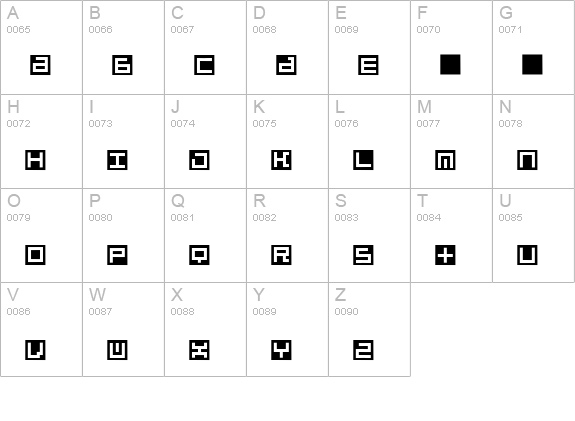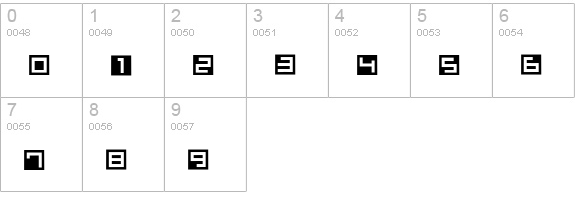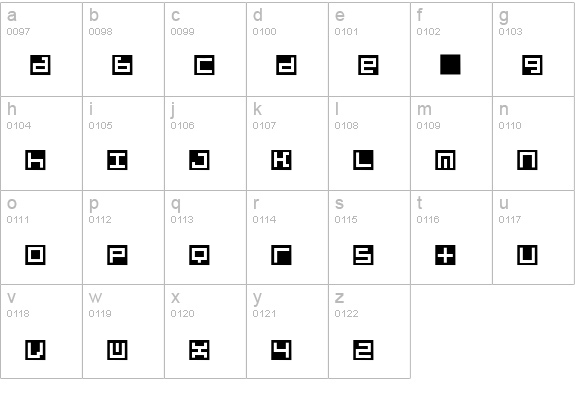
Beatbox-InBox Font Details
Introducing Beatbox-InBox font, a dynamic and energetic typeface that will make your designs pop with rhythm and style. This unique font captures the essence of beatboxing, with its bold and playful letterforms that dance across the page. Beatbox-InBox is the perfect choice for projects that need a touch of urban flair or a modern edge. Whether you're designing a poster for a music festival, creating a logo for a hip new brand, or adding a funky twist to your social media graphics, Beatbox-InBox has got you covered. Best of all, Beatbox-InBox is completely free! You can download this versatile font at FontsMarket.com and start using it in your projects right away. Don't miss out on this exciting opportunity to add some beatbox-inspired magic to your designs. Let Beatbox-InBox bring your creations to life with its bold and vibrant personality.